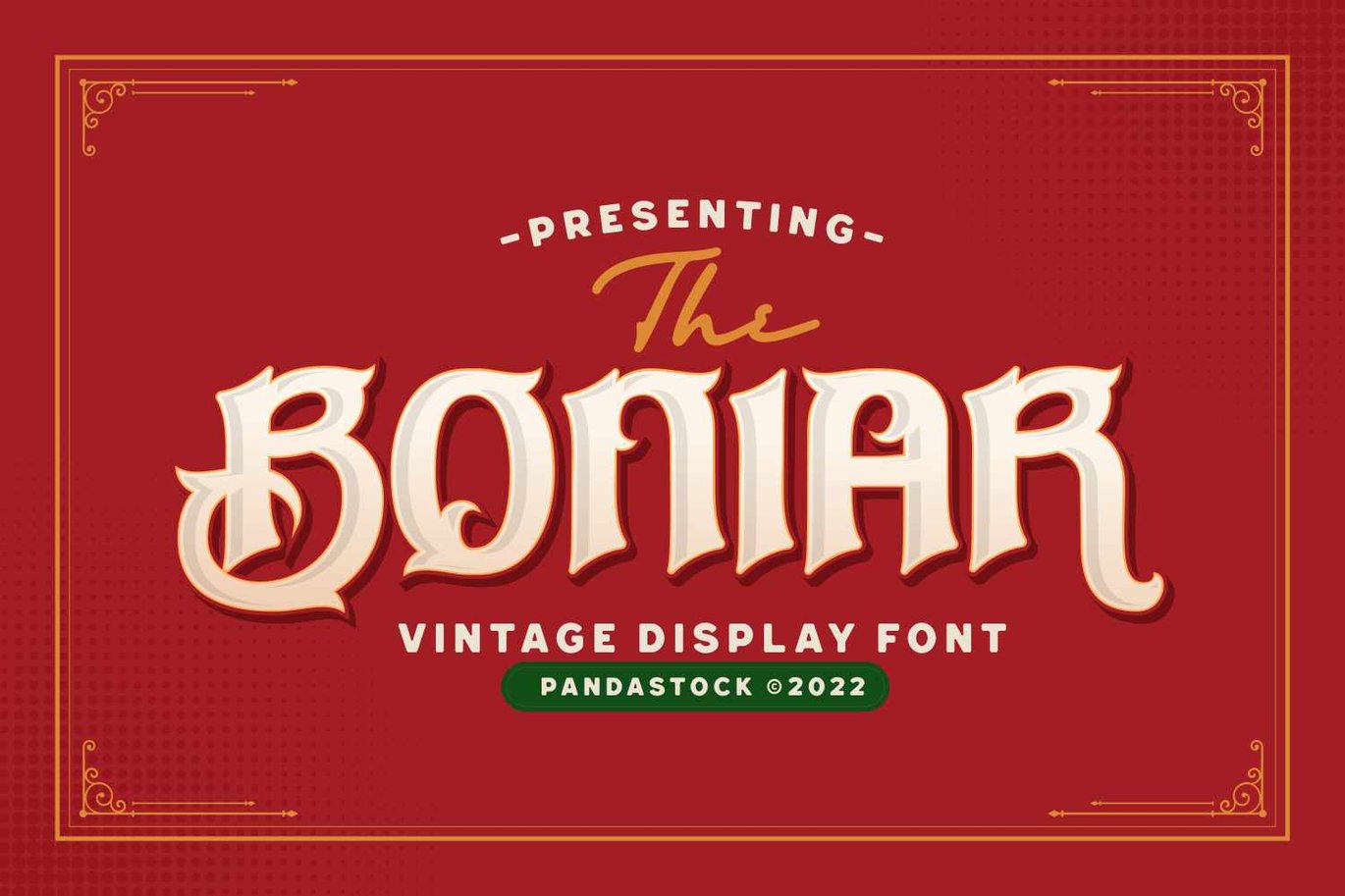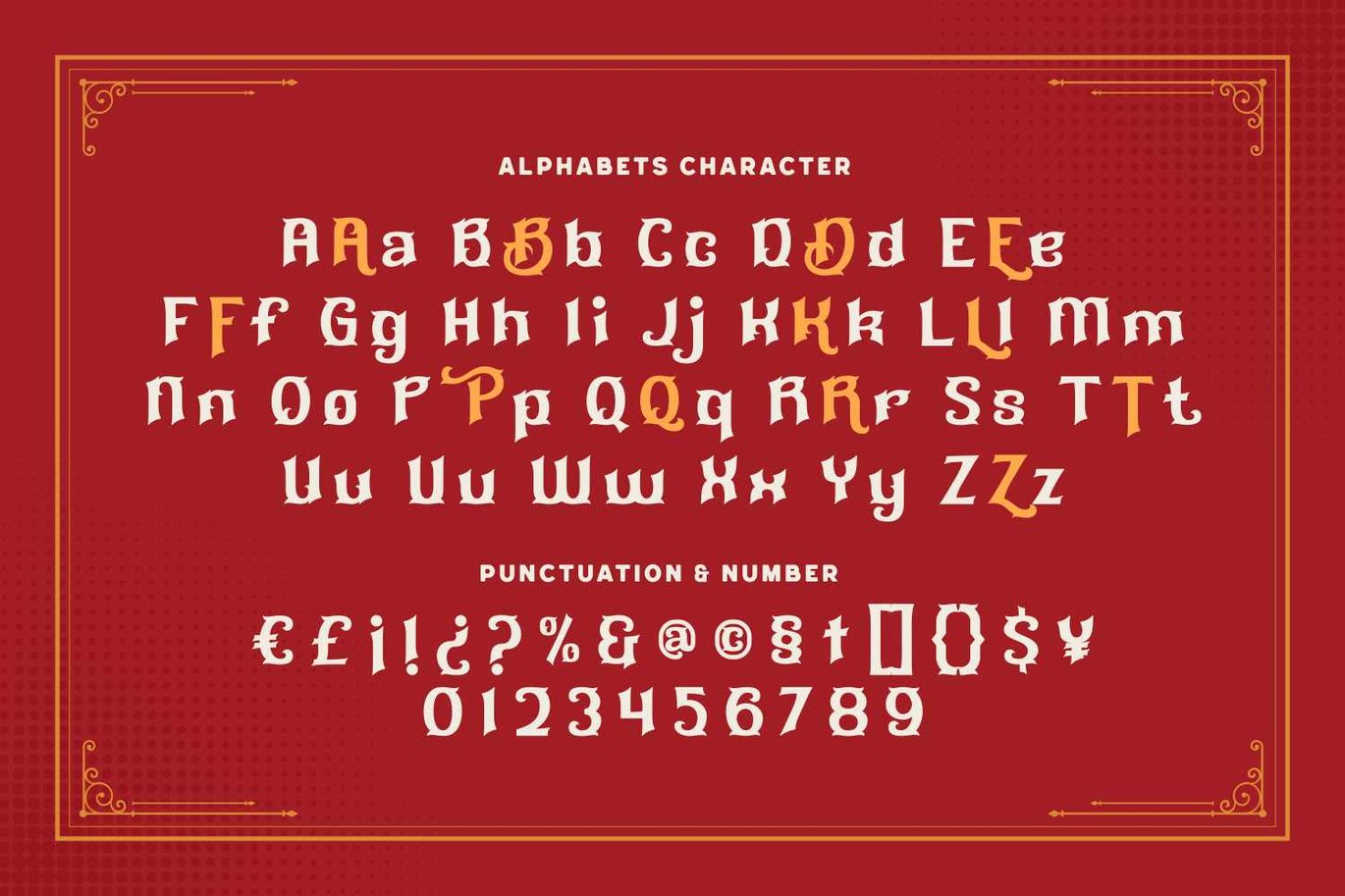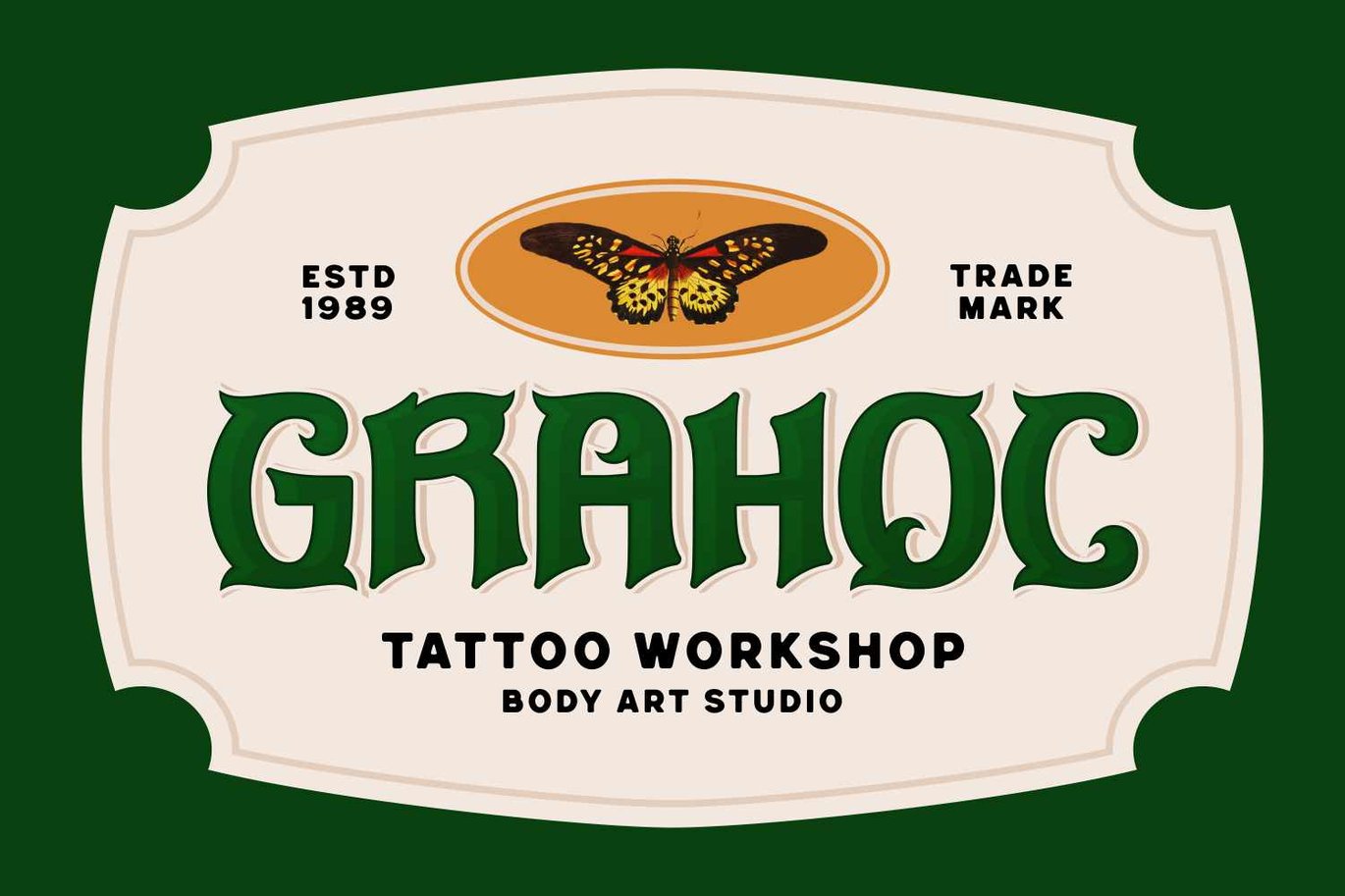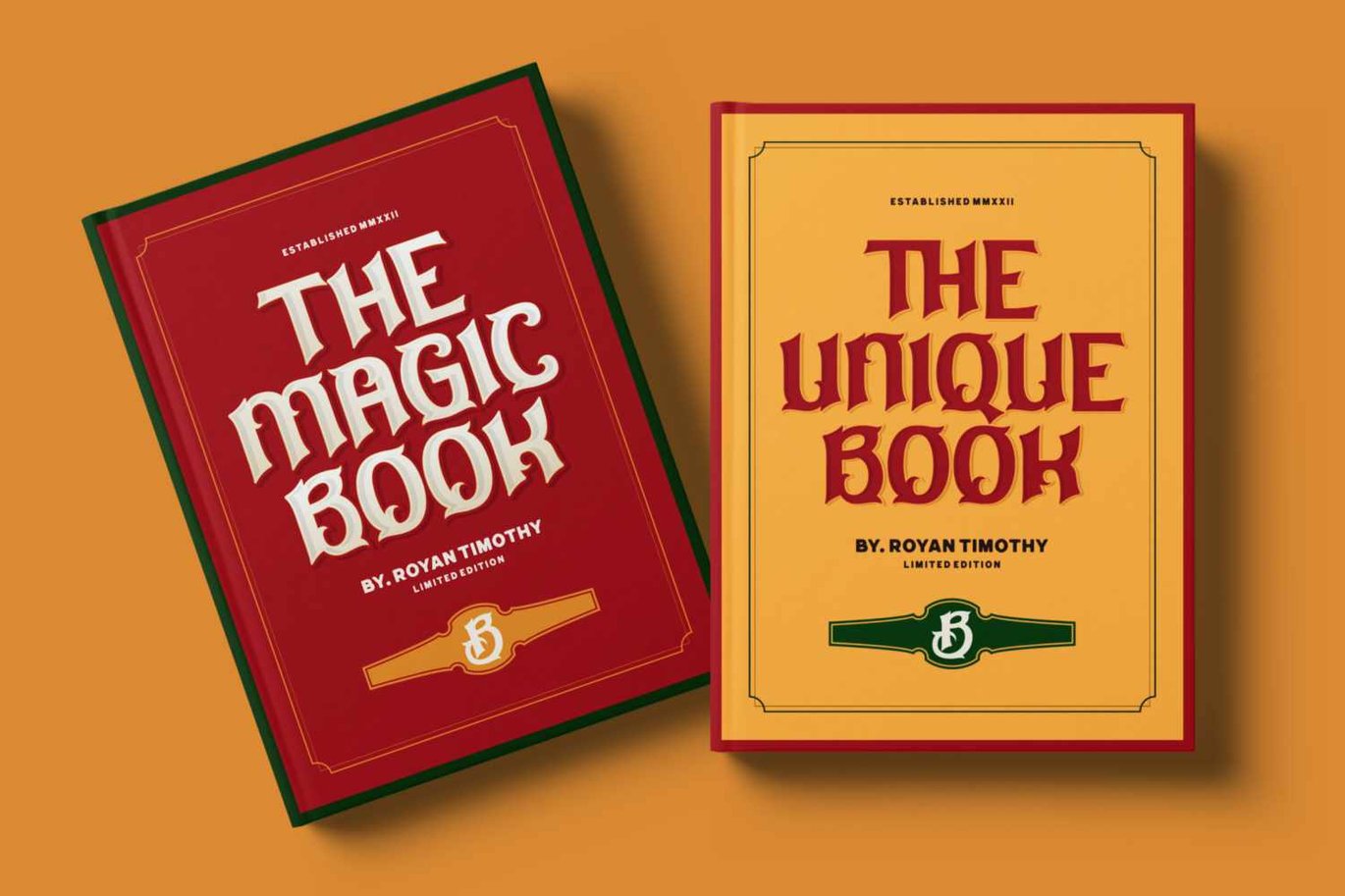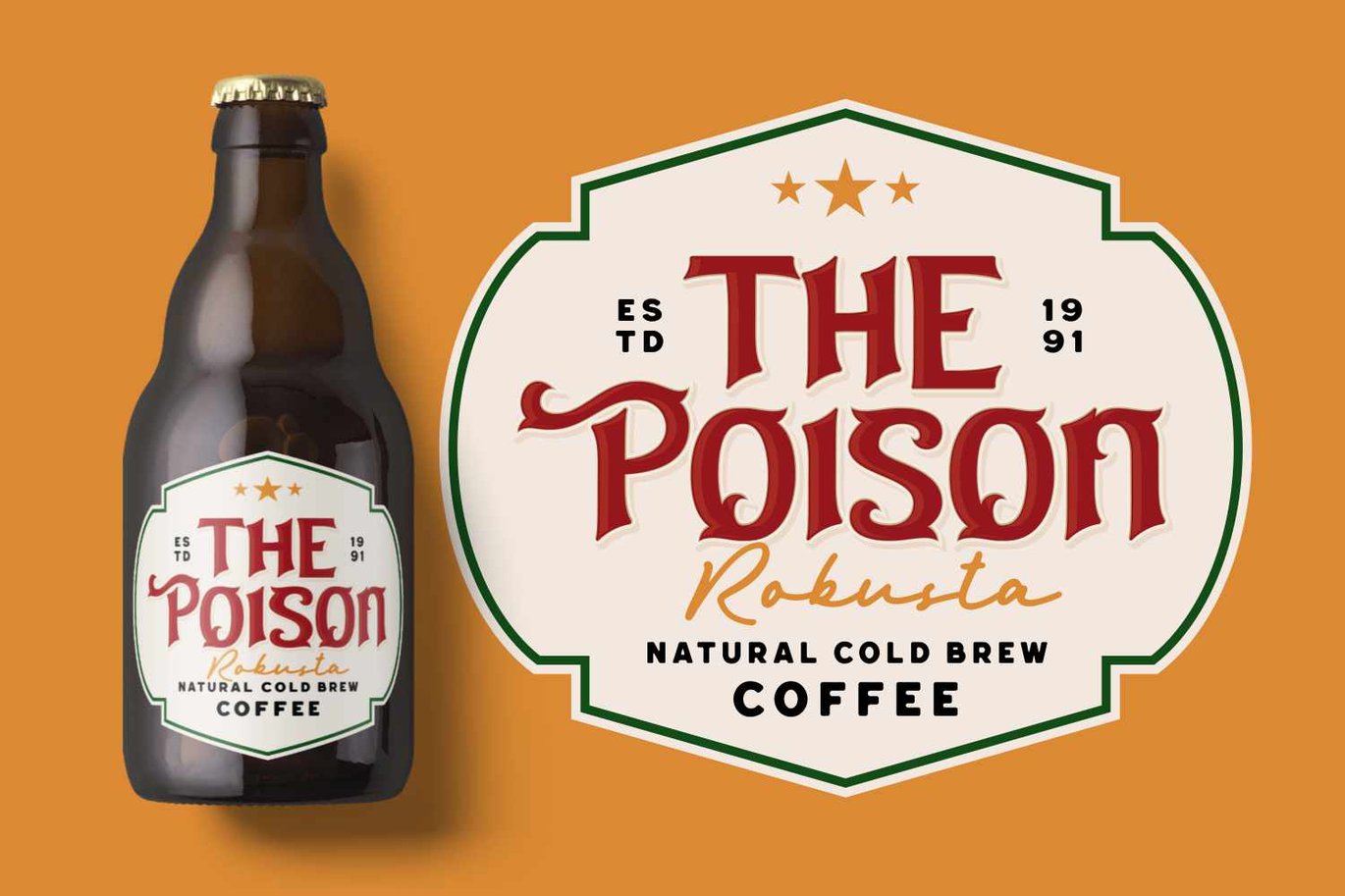
Boniar – Circus Font
Boniar is circus font with visual elegance, smooth curves and beautiful ligatures clear, making your work look true and attractive.
A very versatile font that works in both large and small sizes. This font is suitable for a wide variety of projects such as invitations, logo, branding, magazine, photography, card, product packaging, mugs, quotes, poster, label, signature and more.